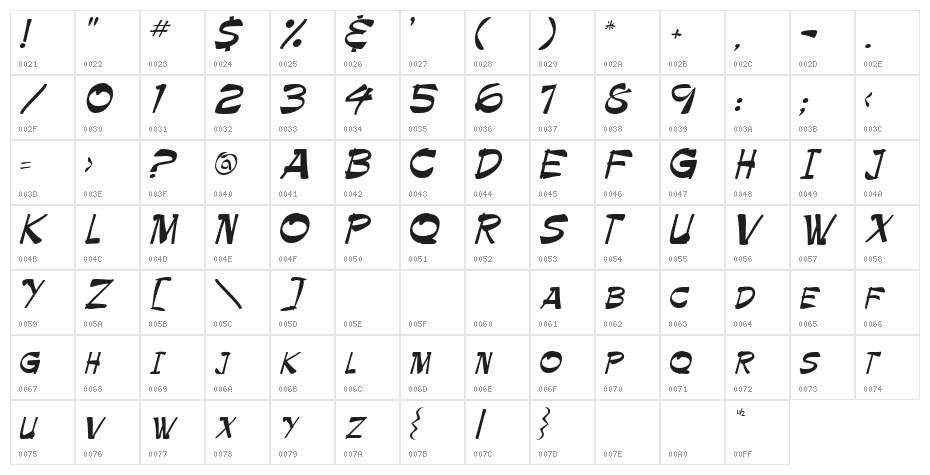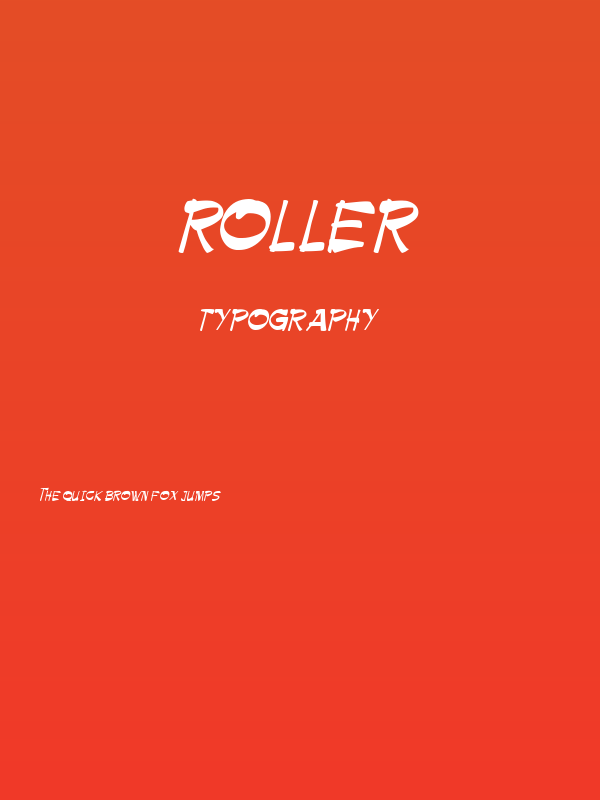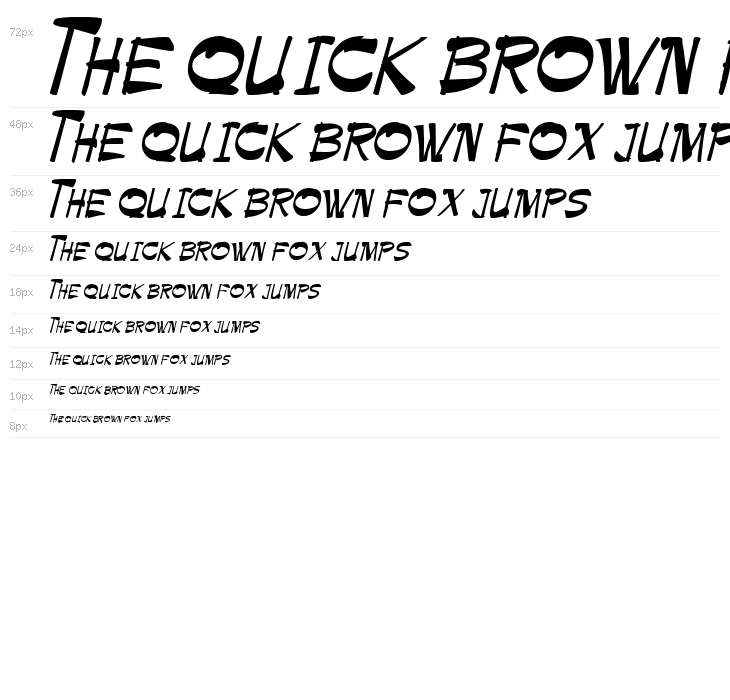
Roller Font
Roller Description
This font features a dynamic and energetic style, characterized by its bold and slanted letterforms. The strokes are thick and exhibit a brush-like texture, giving it a hand-painted appearance. The uppercase letters are particularly striking, with sharp angles and a sense of movement that suggests speed and agility. The lowercase letters maintain this dynamic quality, ensuring consistency throughout the typeface. Numbers and special characters are equally bold and expressive, making them stand out in any design. The overall impression is one of boldness and creativity, suitable for projects that require a strong visual impact.
| Proposed Projects | Ideal for sports branding, dynamic posters, and creative advertising campaigns. |